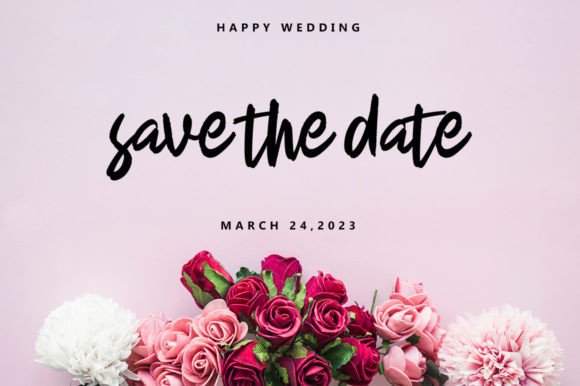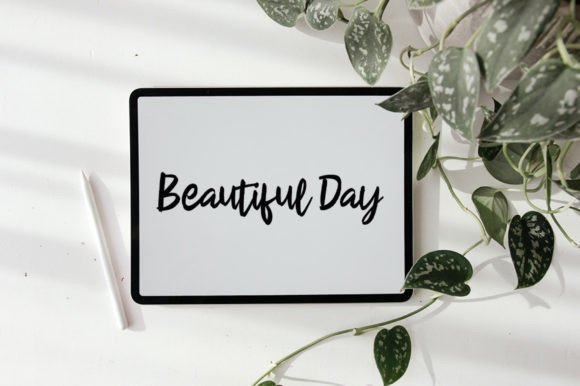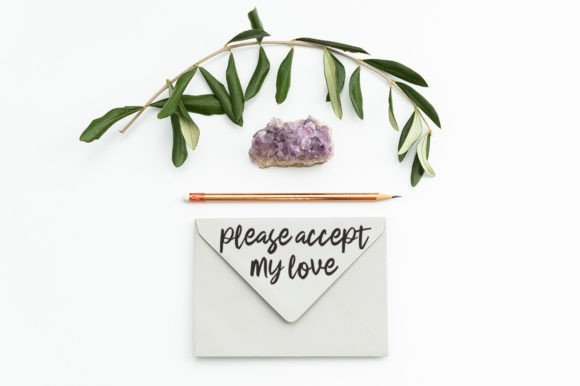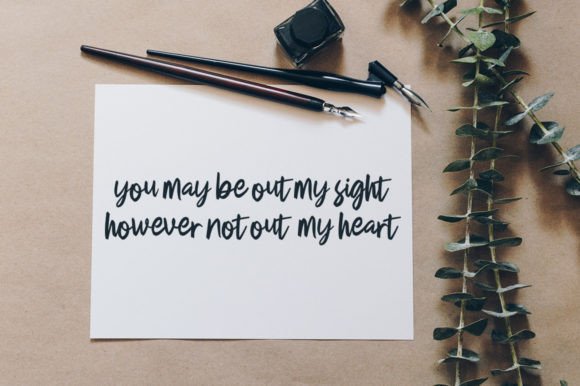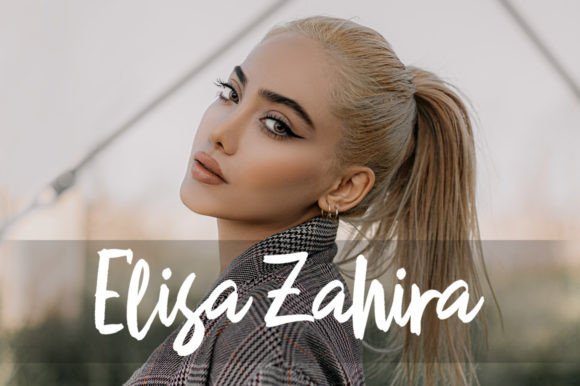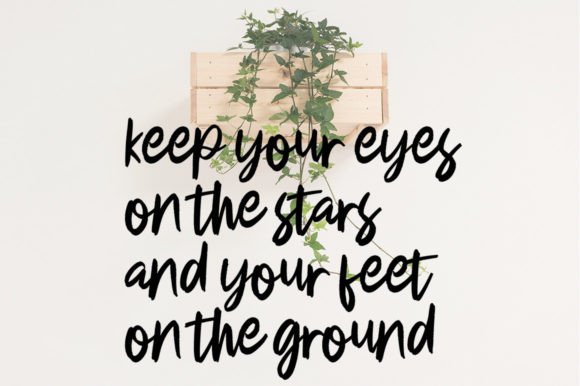
The Elusive Font: A Designer’s Quest for Elegance and Simplicity
I’ll never forget the countless hours I spent searching for the perfect font for a client’s wedding invitation project. The design brief called for something elegant, simple, and yet, uniquely eye-catching. As I scrolled through font after font, I found myself stuck in a sea of sameness. That was until I stumbled upon Gekisal, a beautiful handmade typeface that instantly captured my attention.
Introducing Gekisal: The Perfect Blend of Elegance and Simplicity
Gekisal is a stunning new font that embodies the perfect blend of elegance and simplicity. With its basic dancing lines, this font is incredibly versatile and can be used for a wide range of projects, including titles, logos, invitations, t-shirt designs, greeting cards, posters, labels, book covers, and flyers. Whether you’re a designer, crafter, or creative hobbyist, Gekisal is sure to add a simple, natural feel to your next project.
What I Love About Gekisal ✨
- ✅ Elegant and simple design that’s perfect for a variety of projects
- ✅ Handmade feel that adds a touch of warmth and personality to any design
- ✅ Extensive character set, including OpenType features and glyphs
- ⚠️ Limited availability of stylistic alternates, which may limit design flexibility
- ⚠️ Some users may find the font too simplistic or lacking in boldness
The Story Behind Gekisal: Designer Inspiration
Gekisal was designed with the goal of creating a font that’s both elegant and simple. The designer, inspired by traditional craftsmanship, aimed to create a font that feels handmade and unique. The result is a beautiful typeface that’s perfect for designers, crafters, and creative hobbyists alike.
A: Gekisal is a versatile font that can be used for a wide range of projects, including titles, logos, invitations, t-shirt designs, greeting cards, posters, labels, book covers, and flyers.
Q: Is Gekisal easy to read?
A: Yes, Gekisal is highly legible, even at smaller font sizes. Its simple design makes it easy to read and understand.